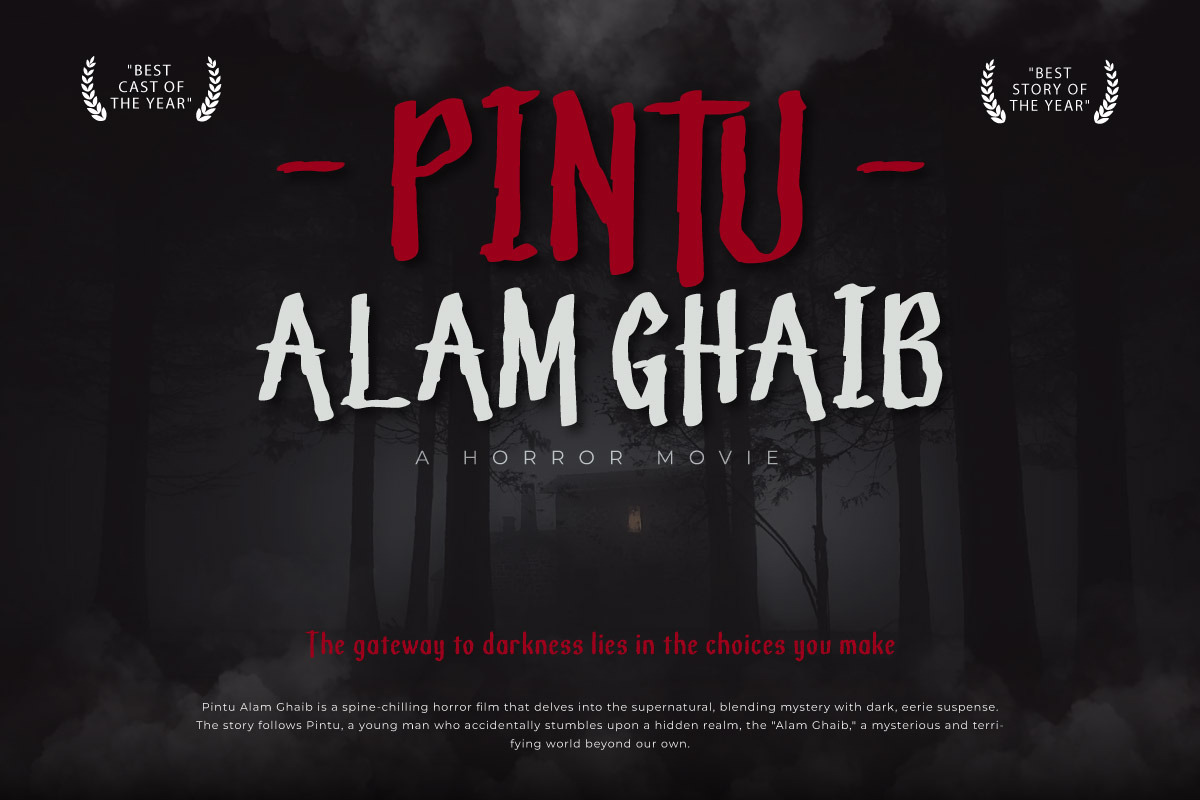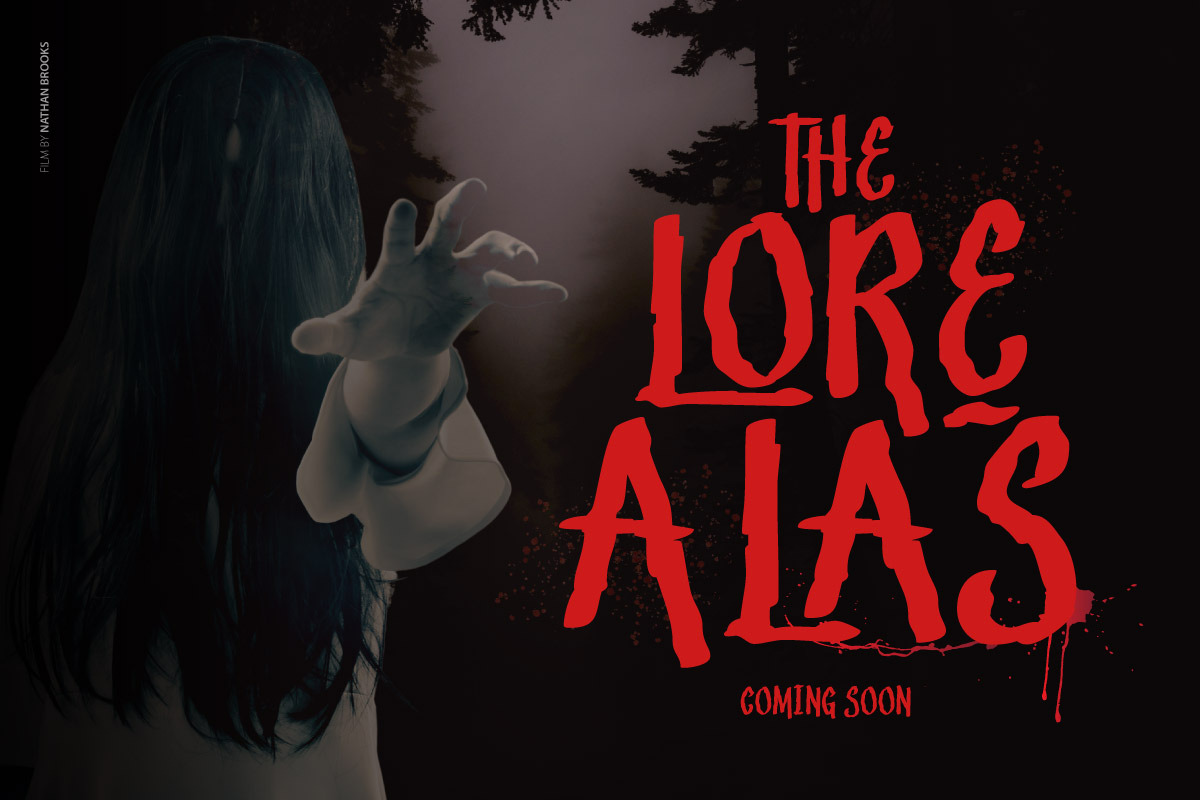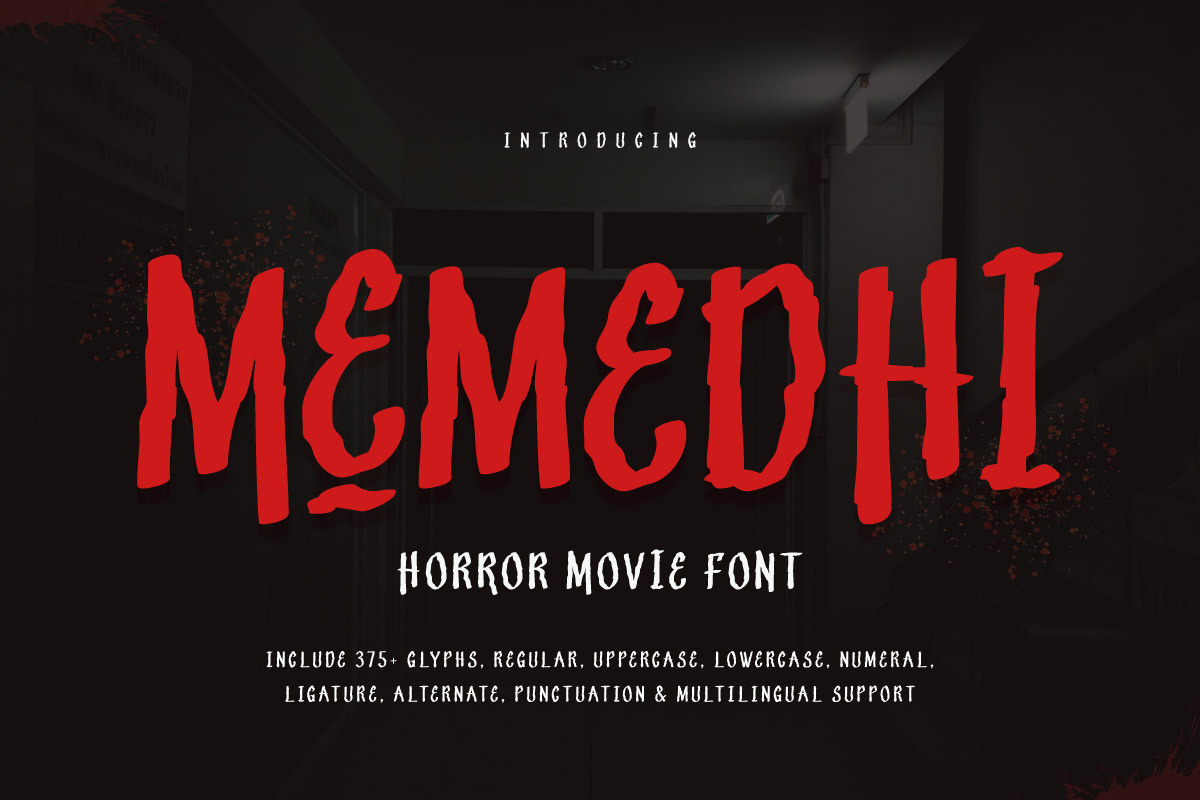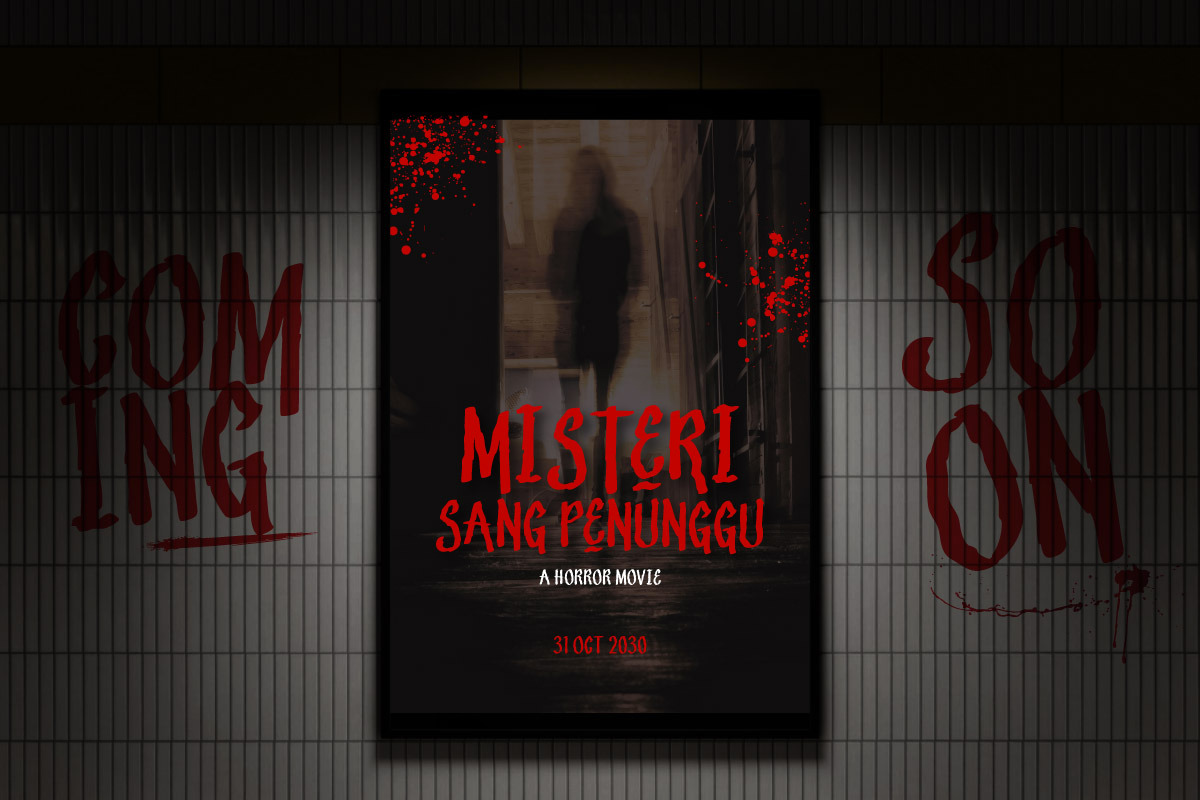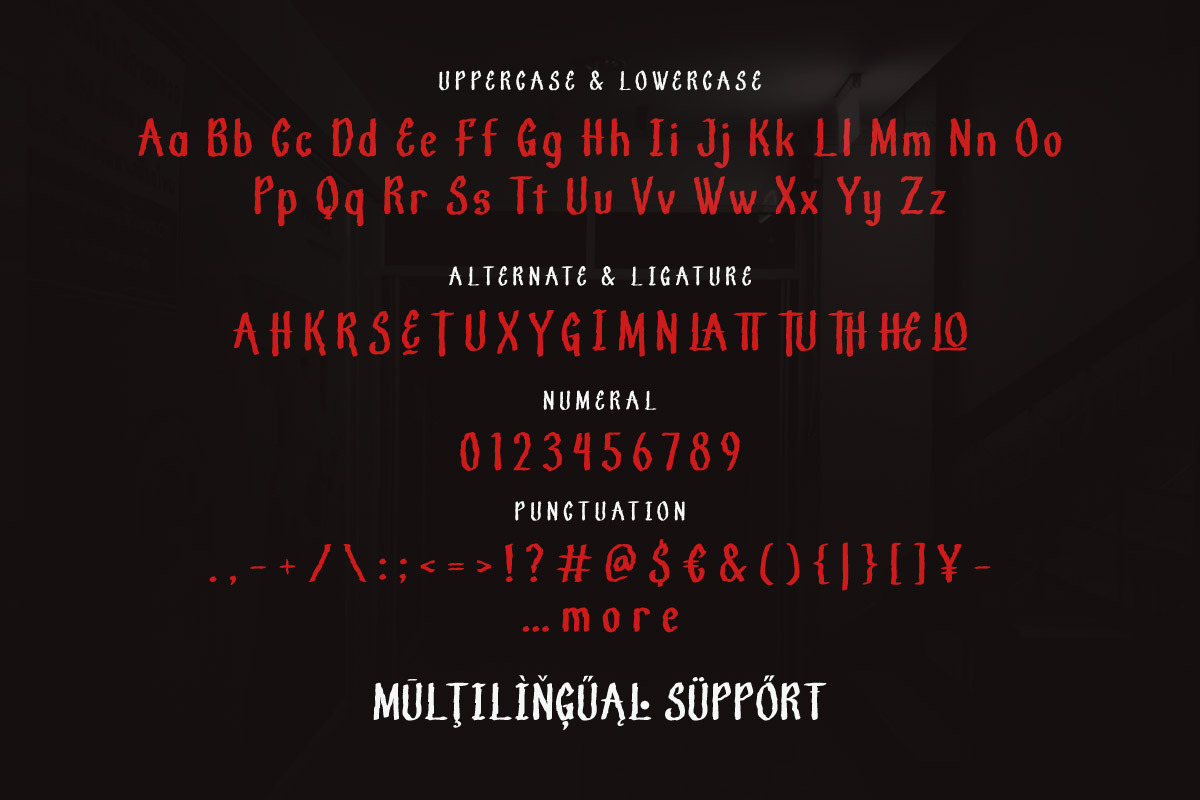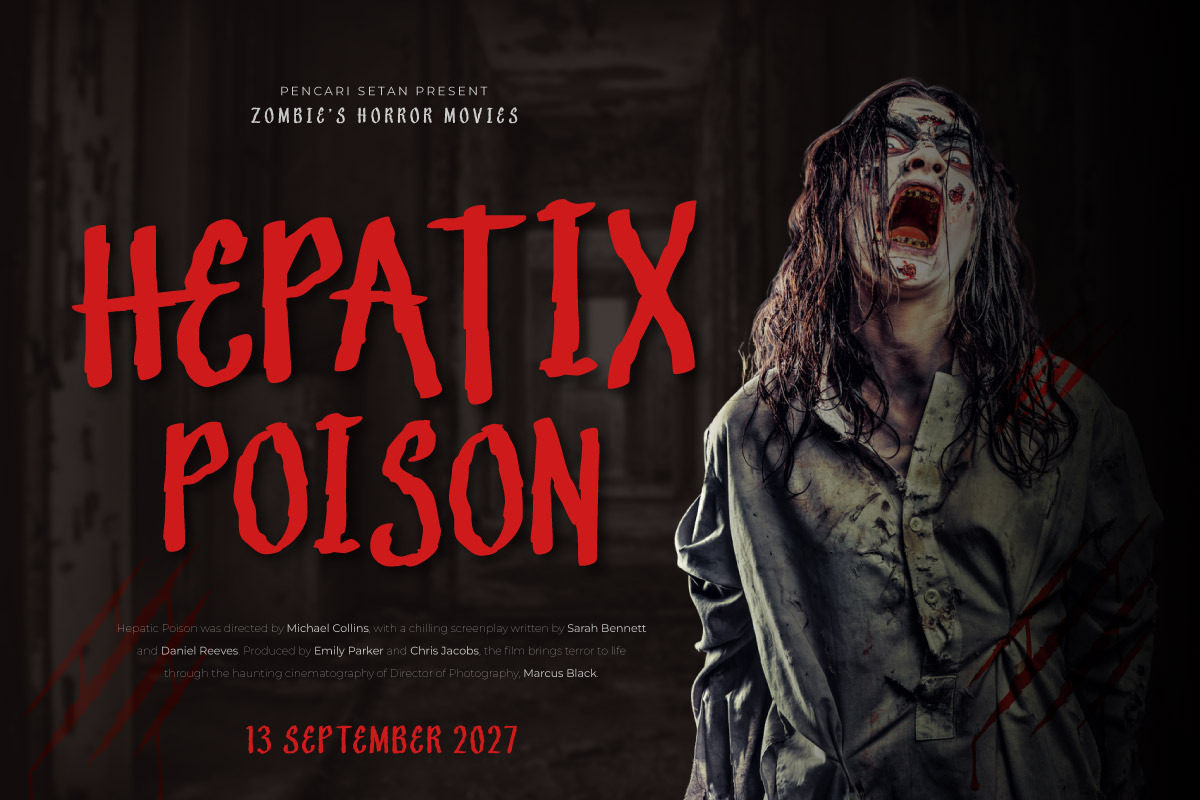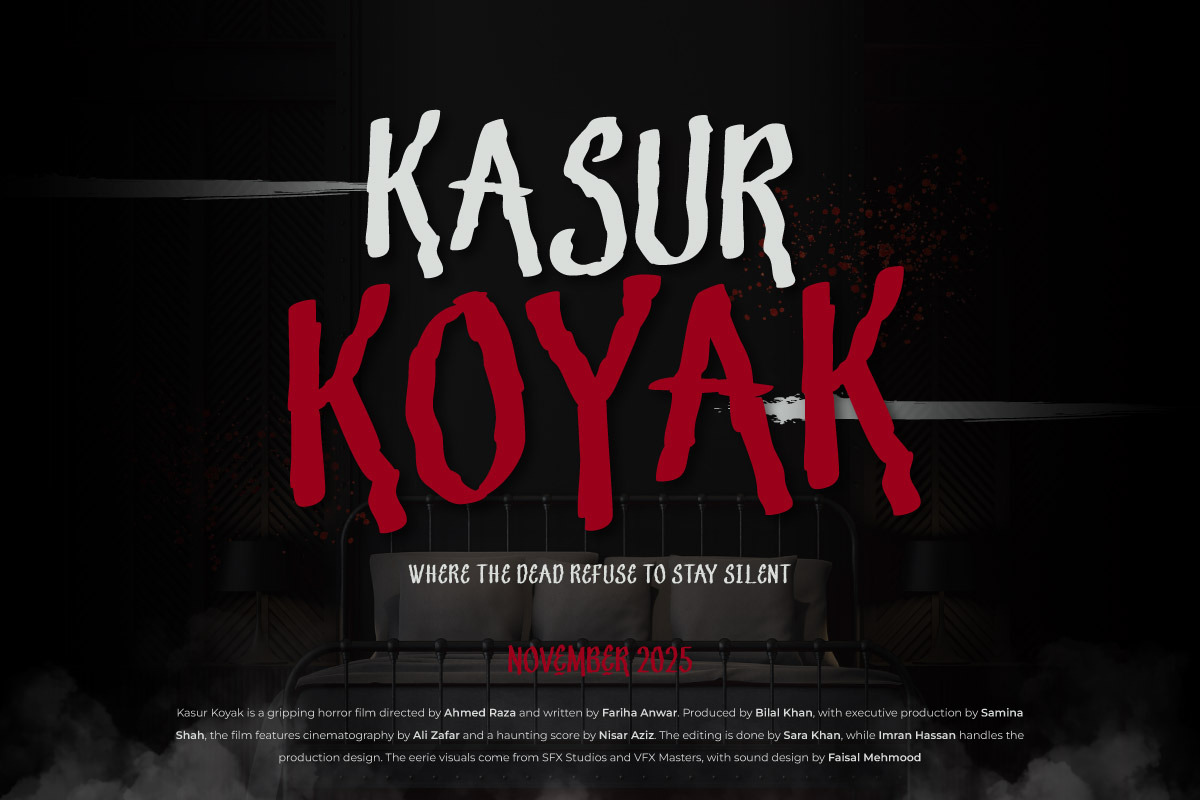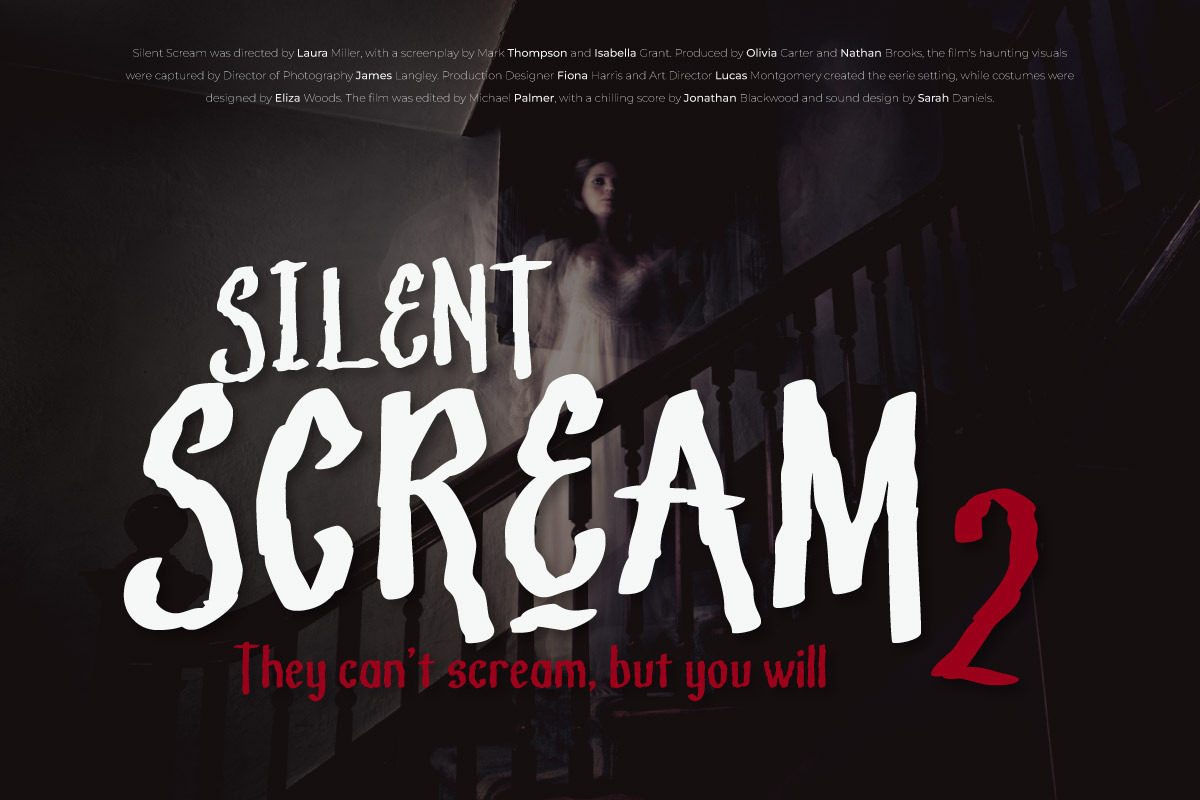
Memedhi - Horror Movie Font
"Memedhi is a bone-chilling horror movie font designed to capture the essence of fear and suspense. With its distorted, sharp, and eerie letterforms, this font evokes a sense of dread, making it the perfect choice for horror movie posters, thriller book covers, haunted house flyers, Halloween events, and dark-themed branding.
Inspired by classic horror films and supernatural aesthetics, Memedhi brings an unsettling atmosphere to any design. Its uneven strokes and shadowy appearance create a terrifying visual impact, ensuring that your audience feels the suspense even before reading the content.
Whether you’re designing for cinematic horror projects, ghost stories, or gothic branding, Memedhi delivers the ultimate creepy touch. Let your designs scream with terror using this hauntingly powerful typeface!